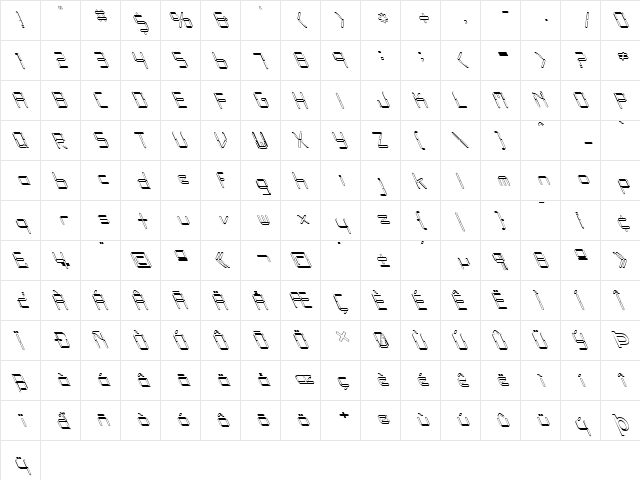
FZ DIGITAL 10 HOLLOW LEFTY Normal
Design Context for FZ DIGITAL 10 HOLLOW LEFTY Typeface
FZ DIGITAL 10 HOLLOW LEFTY has a distinctly futuristic character, with geometric precision and clean angles that feel at home in technology, gaming, and sci-fi contexts.